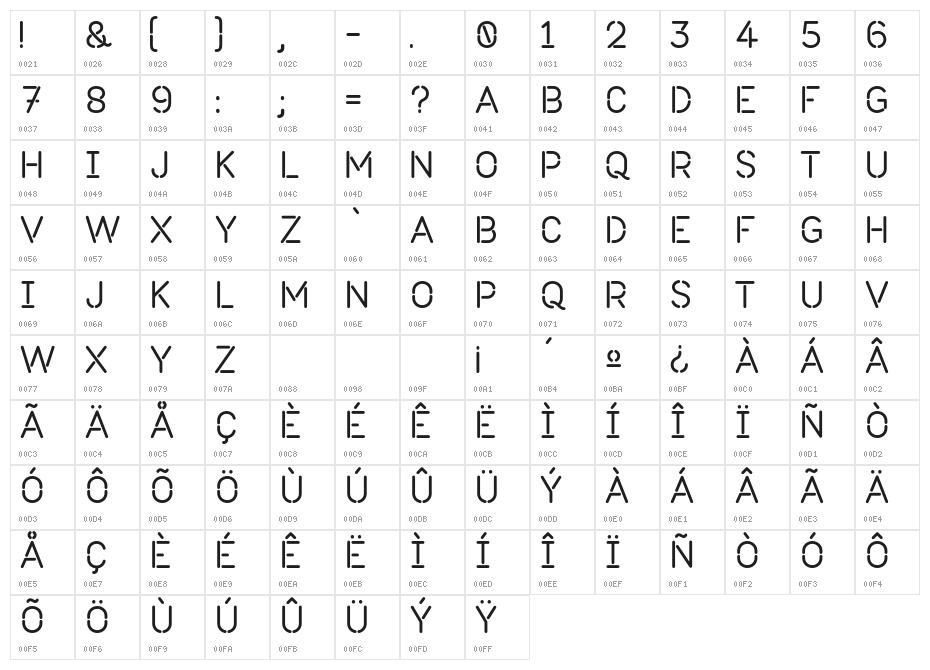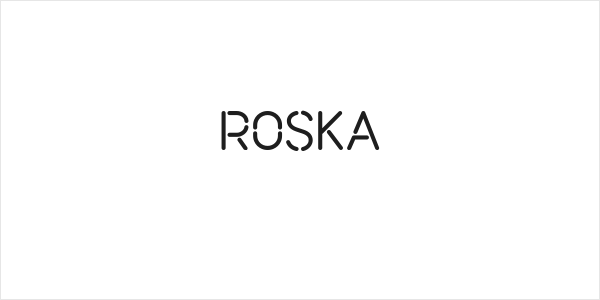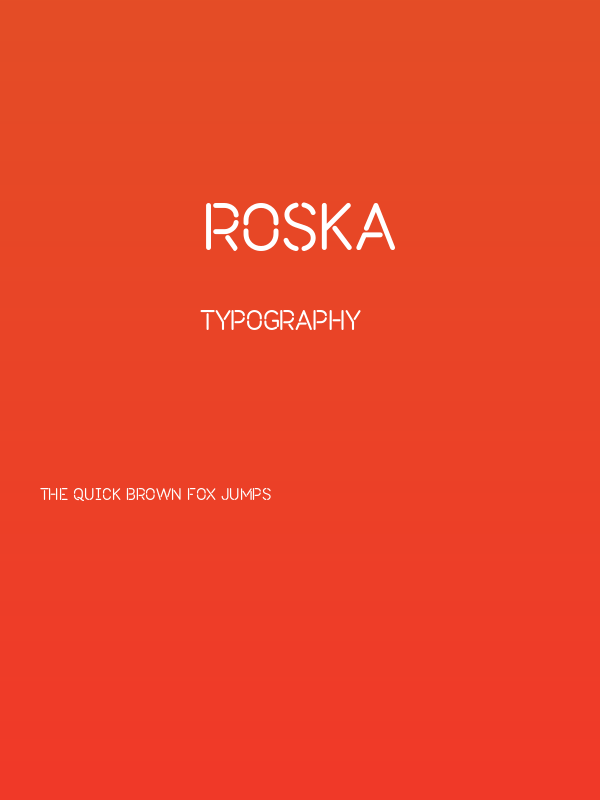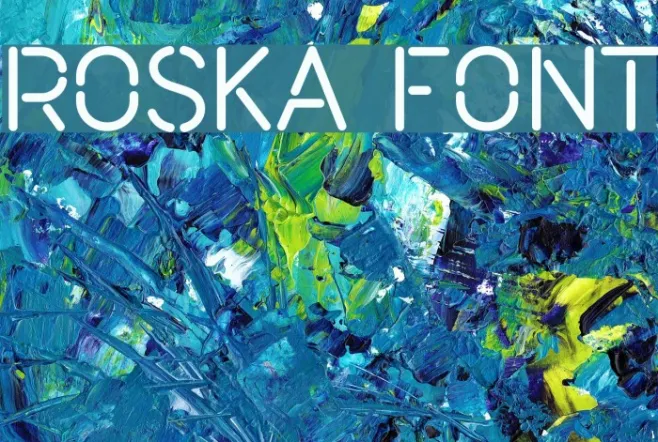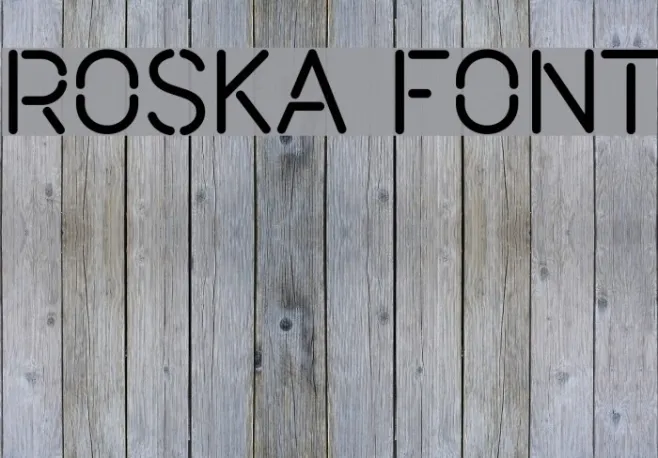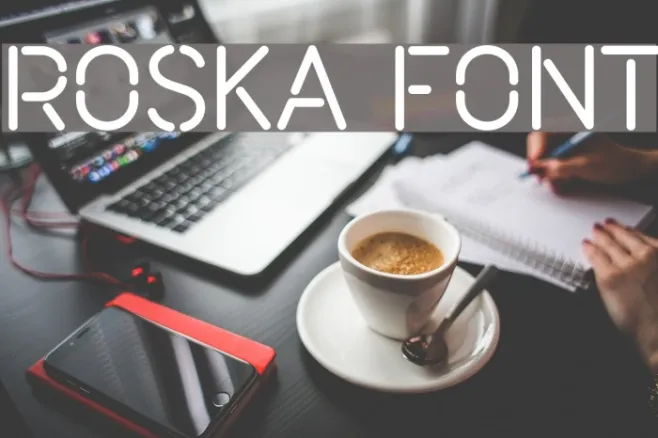
ROSKA Font
ROSKA Description
This font features a modern, geometric design with a distinct stencil-like appearance. The characters are composed of clean, bold lines with rounded edges, creating a futuristic and industrial feel. The uppercase and lowercase letters maintain a consistent style, with uniform stroke widths and a balanced structure. The numbers and special characters follow the same design principles, ensuring a cohesive look across all elements. The font's unique cut-out sections add visual interest and make it stand out, making it suitable for creative and contemporary projects.
| Proposed Projects | Ideal for branding, packaging, posters, and digital media that require a modern and industrial aesthetic. |